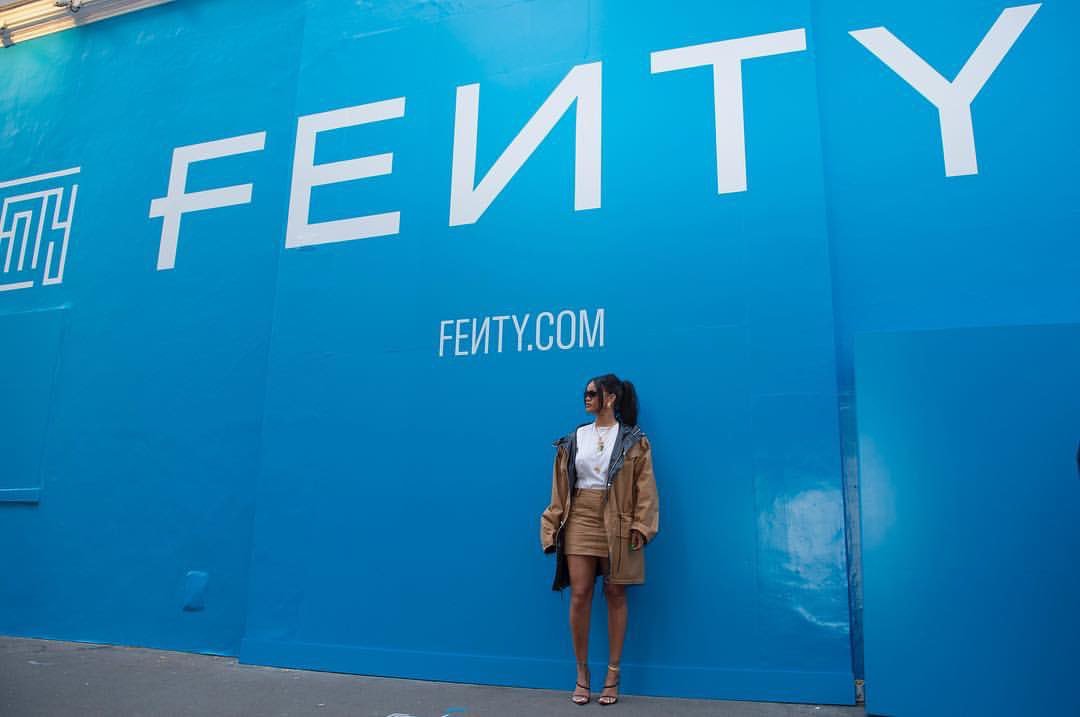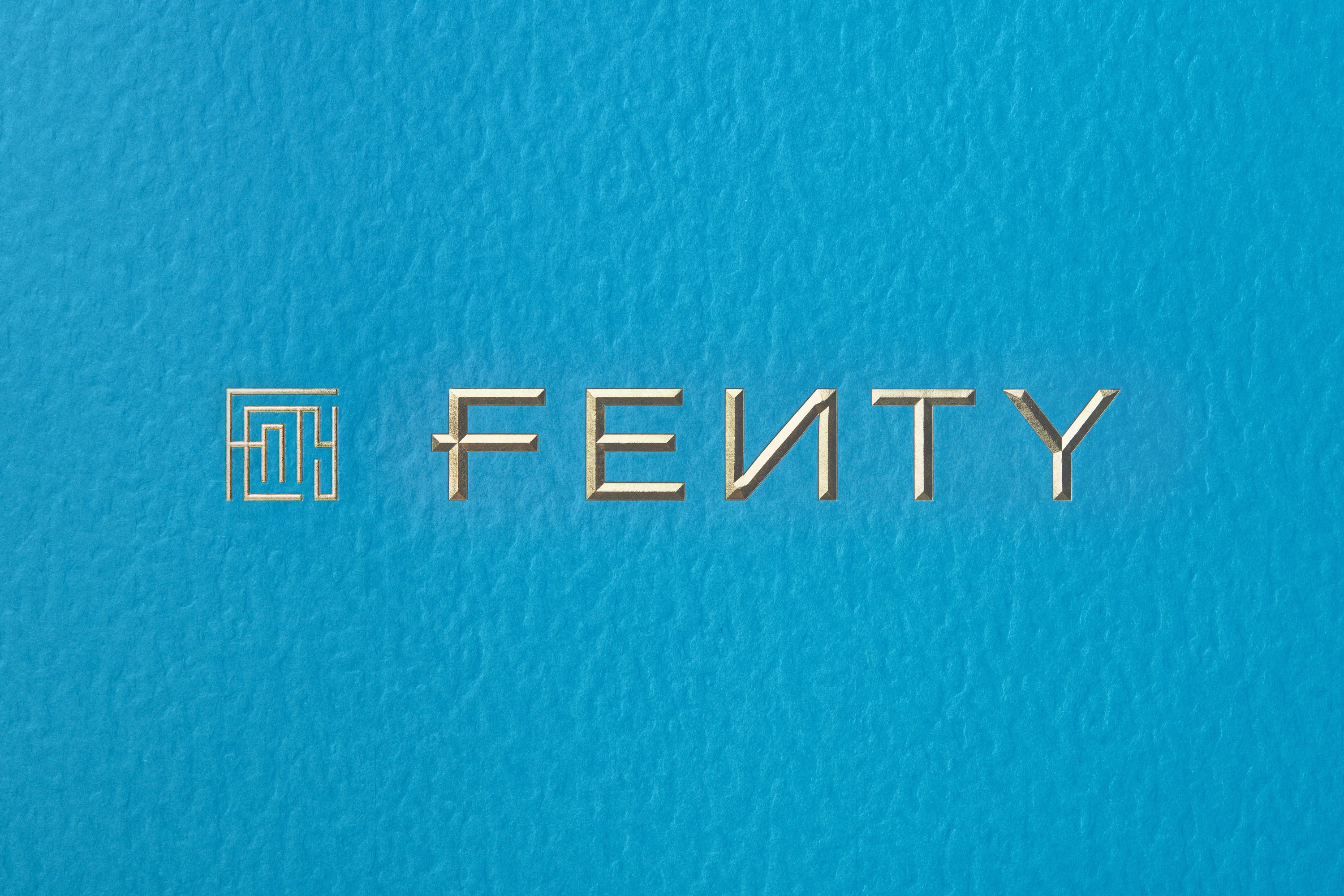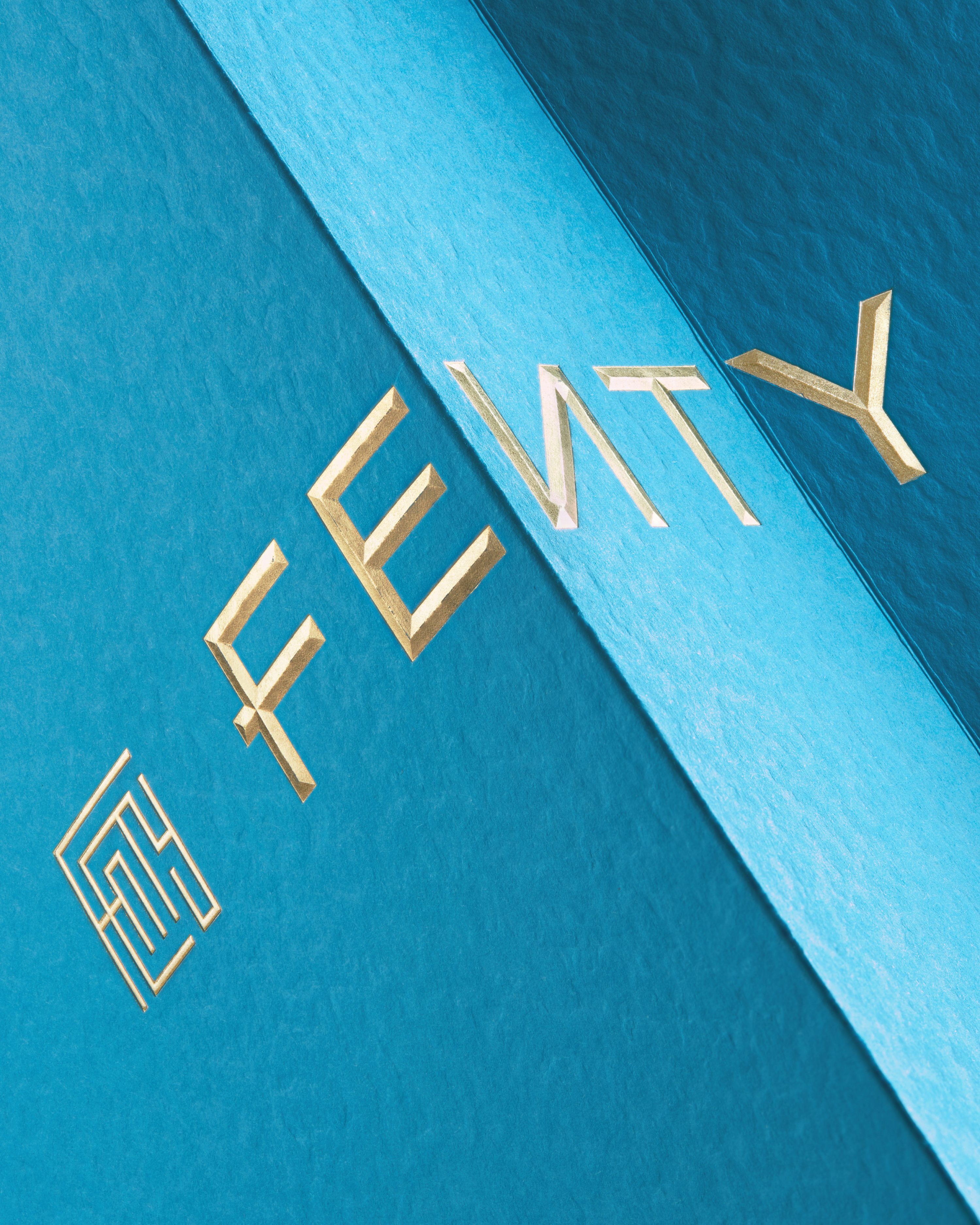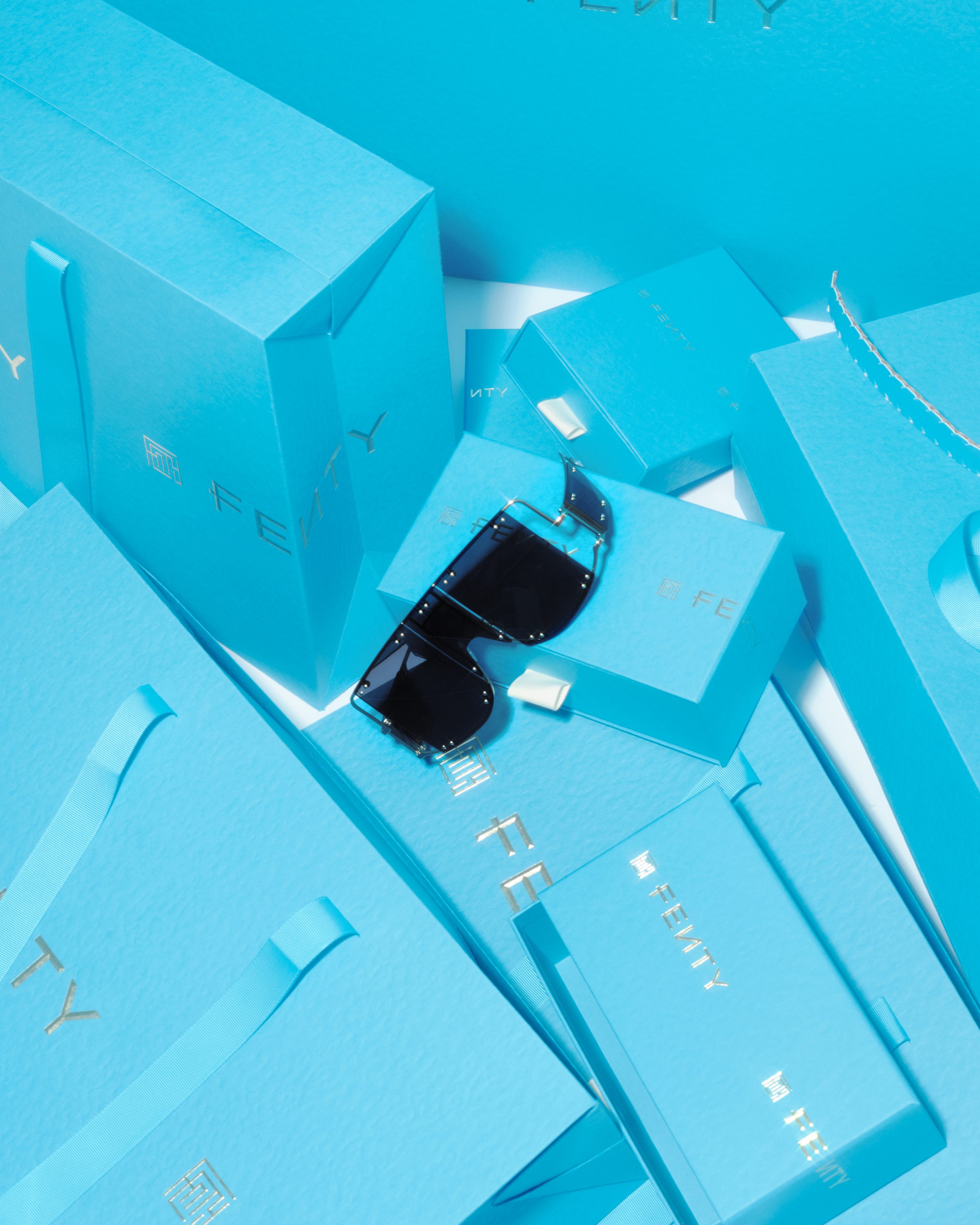
FENTY for the win: how Commission Studio branded Rihanna’s urban luxe label
After just six months in business, Rihanna's historic luxury fashion house FENTY has been presented with the Urban Luxe award by the British Fashion Council at this year’s Fashion Awards 2019.
“Contextualising Rihanna isn’t easy – which meant the role of creating the branding for her first fashion house had to be handled by the experts” writes Leanne Cloudsdale. Founded by creative directors David McFarline and Christopher Moorby, Commission Studio’s heavyweight portfolio of luxury clients was enough proof for the synergy to happen.
“The new wordmark was drawn from scratch. The distinctive letter ‘F’ with the strokes overlapping references Rihanna’s own handwriting and the reverse ‘N’ is a legacy nod to the Fenty Beauty logo” said McFarline describing the inspiration behind the design of an entirely new wordmark for the brand.
“We used a special adaptation of the Grilli typeface GT America Compressed Light for the brand typeface with the ‘N’s reversed as part of the standard character set. Everything is clean and modern – specifically designed to work well on small scale devices such as phones and tablets. Across the packaging, the logos were applied with gold foil and a 3D sculpted diamond emboss to give that luxe feel” he added.
“Typically, monograms have always been an integral communication tool for luxury brands and Commission Studio wanted to develop a contemporary version that could be used throughout the Fenty collection. ‘The Maze’ logo was a fresh interpretation of this and includes every letter of the brand name. At first glance, it could be a QR code, electronic circuitry, a Chinese character, or a Greek key – what makes ‘The Maze’ unique is how it manages to be modern and familiar at the same time.”
Alongside the visual identity, London based design and branding consultancy Commission created the complete packaging suite and garment branding for Robyn Rihanna Fenty's awarded fashion house.
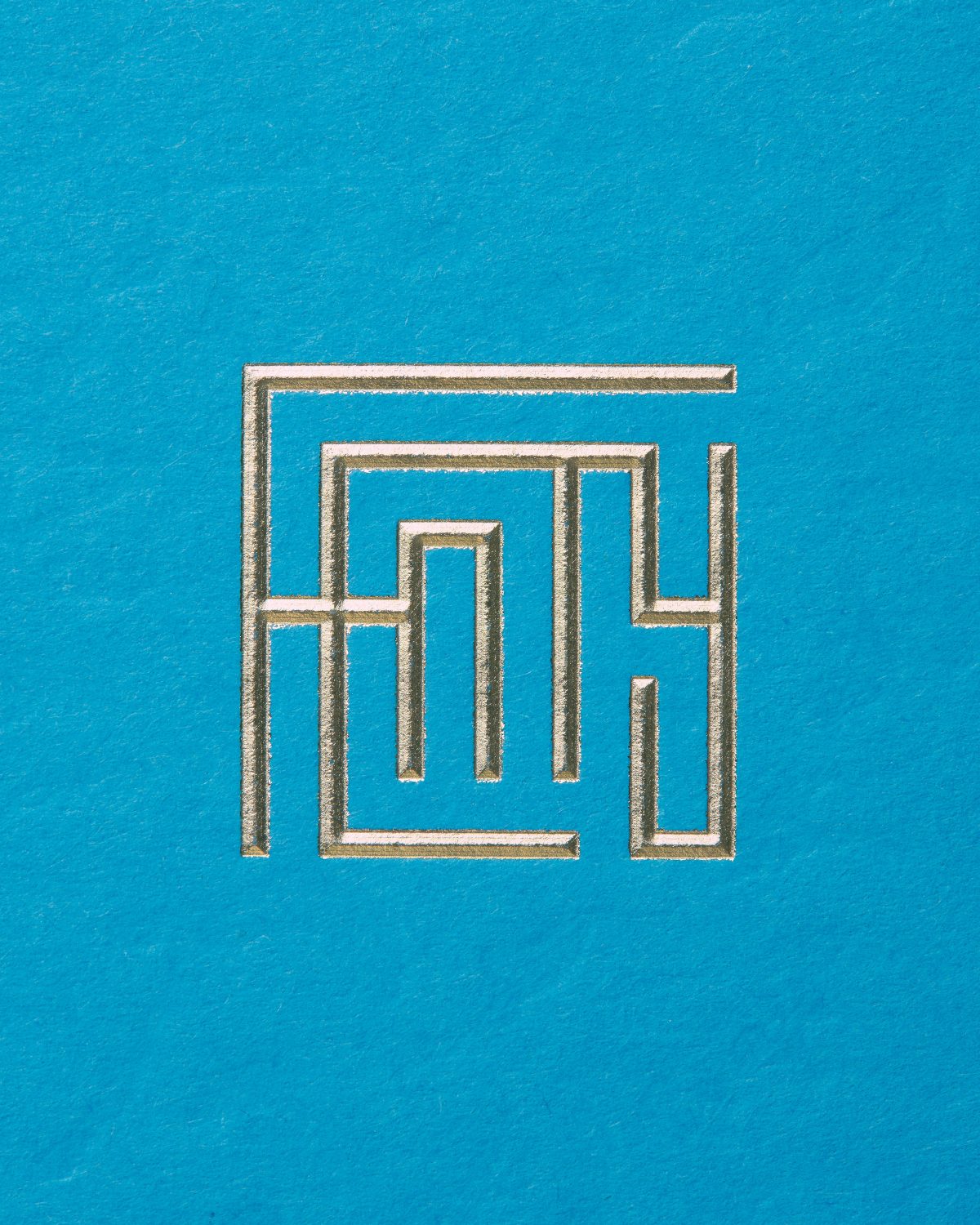
“The Maze logo includes every letter of the brand name. What makes ‘The Maze’ unique is how it manages to be modern and familiar at the same time”
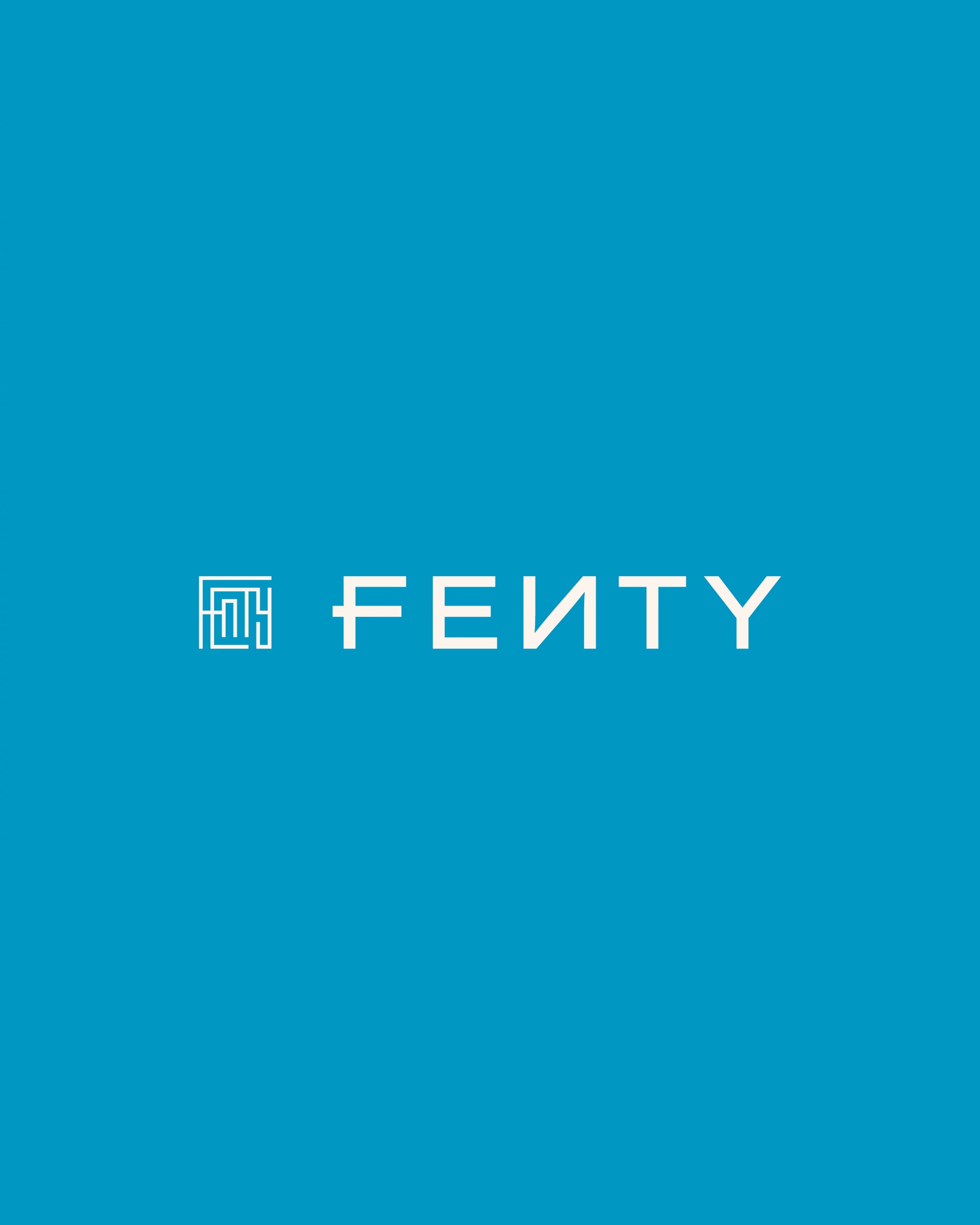
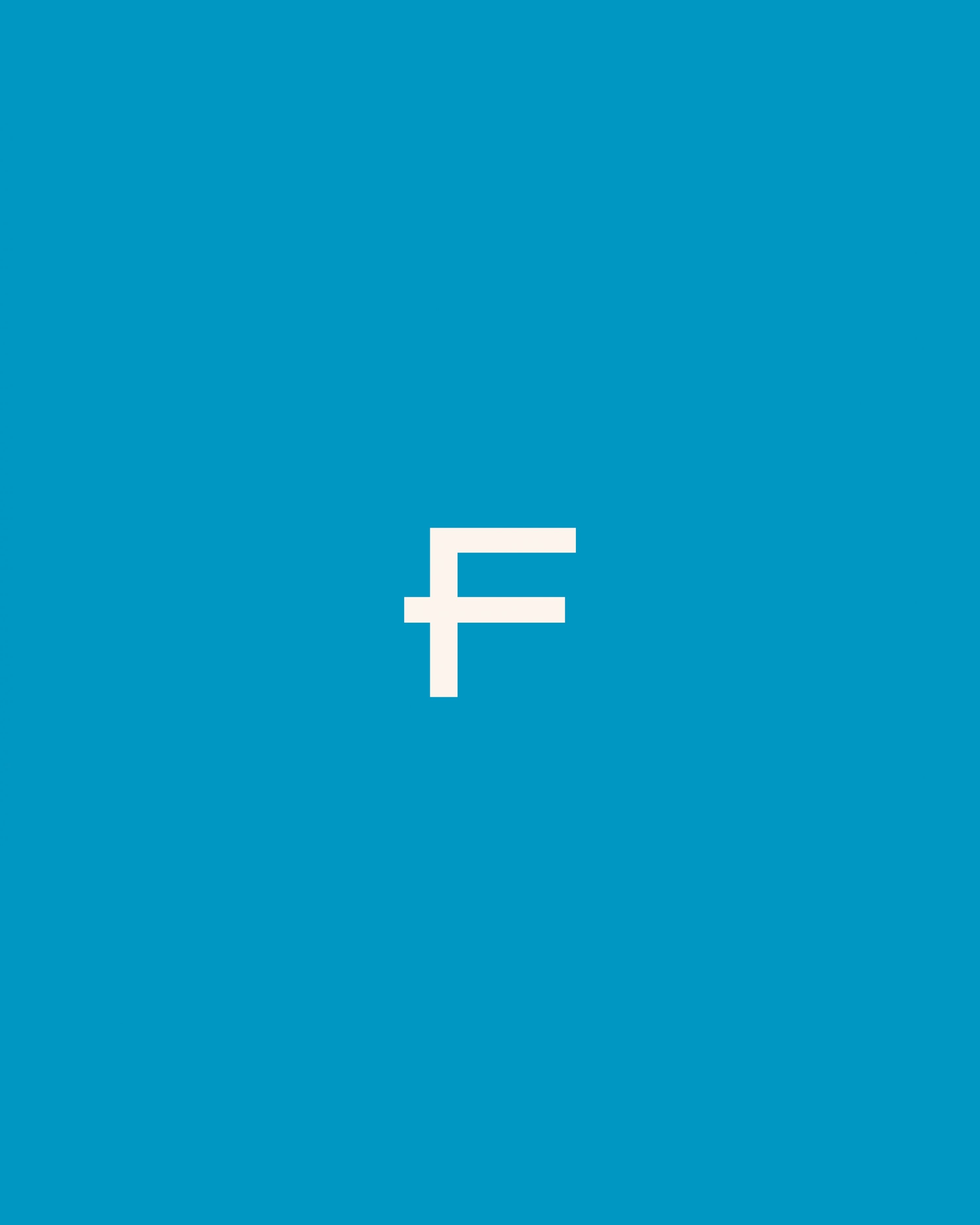
“The distinctive letter ‘F’ with the strokes overlapping references Rihanna’s own handwriting and the reverse ‘N’ is a legacy nod to the Fenty Beauty logo”